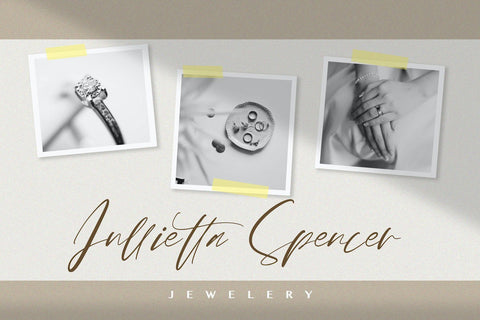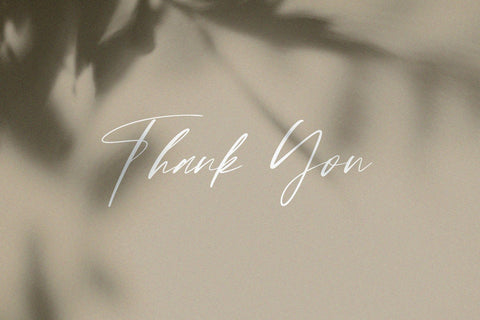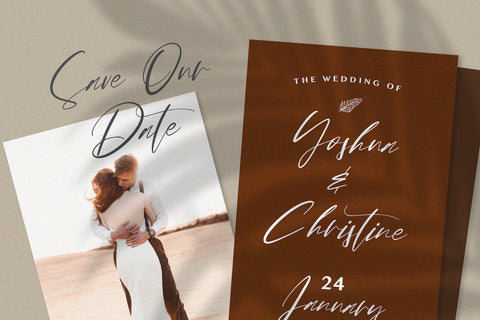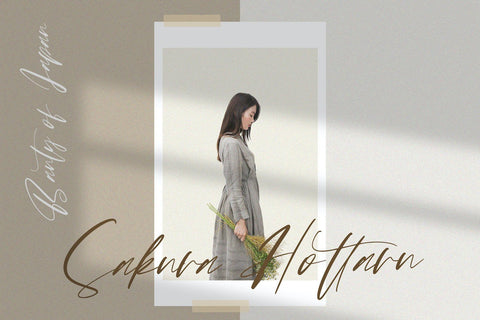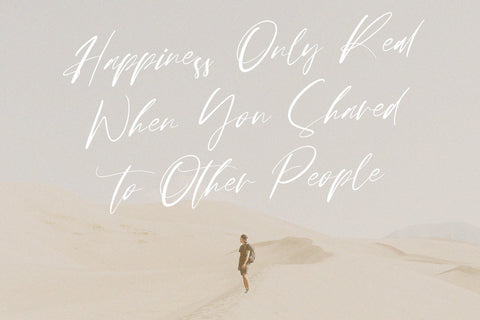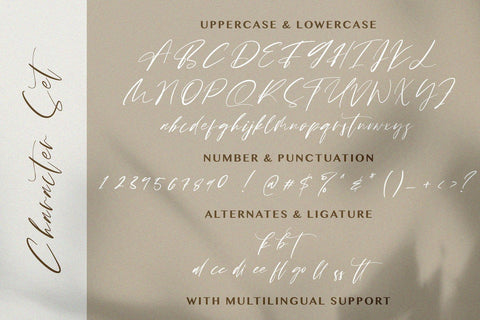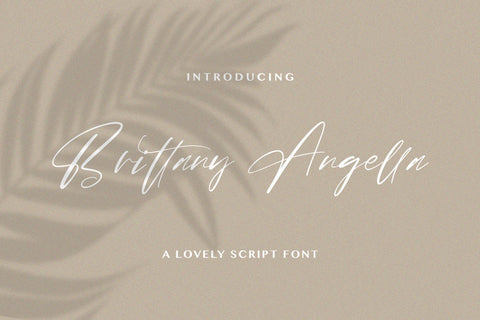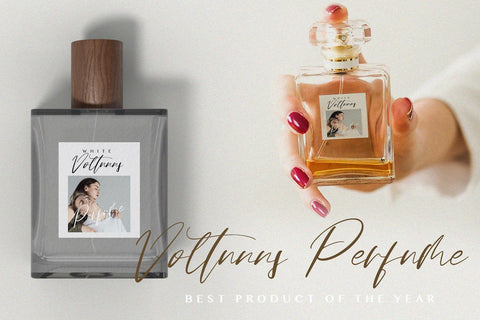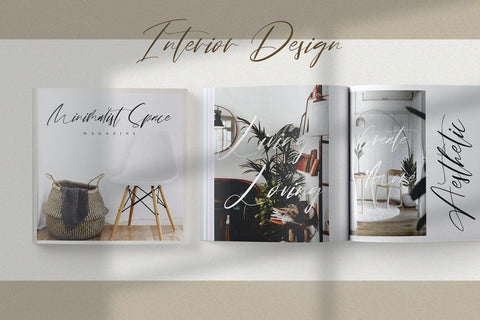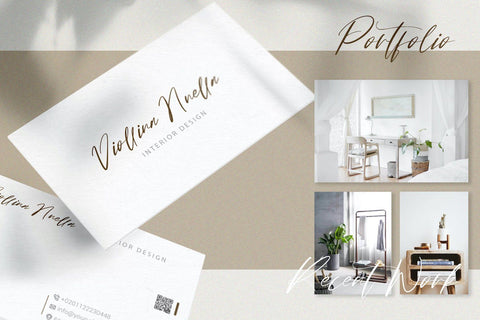
Brittany Angella - Lovely Script Font
Introducing Brittany Angella - Lovely Script Font
The Brittany Angella is a lovely modern calligraphy script font. It has a playful and feminine look, which is great for wedding invitations and anniversaries, blogs and logos. Brittany Angella is a handwritten font, described by an elegant touch, perfect for your favorite projects.